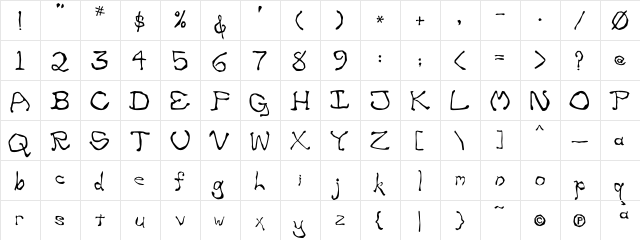
zippittey Medium
Design Context for zippittey Typeface
zippittey is a composed and adaptable typeface that performs quietly and consistently across a wide range of design contexts.